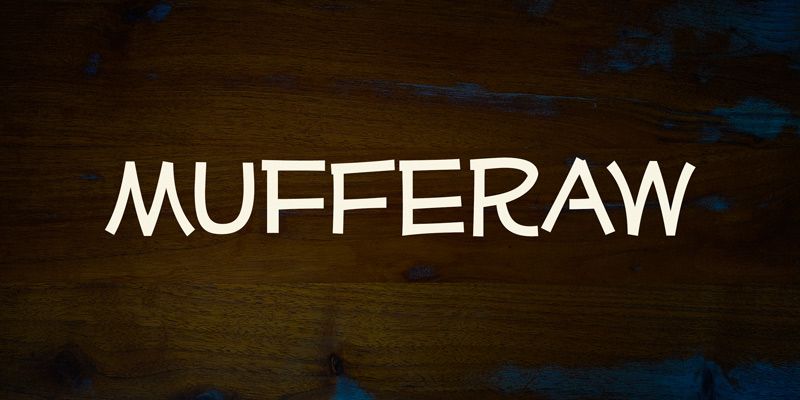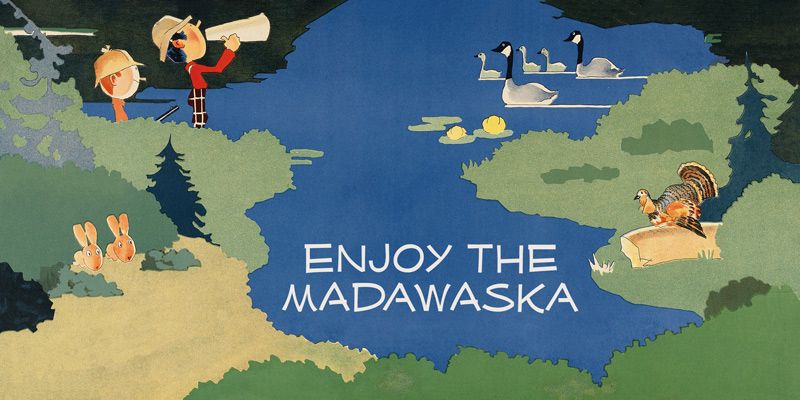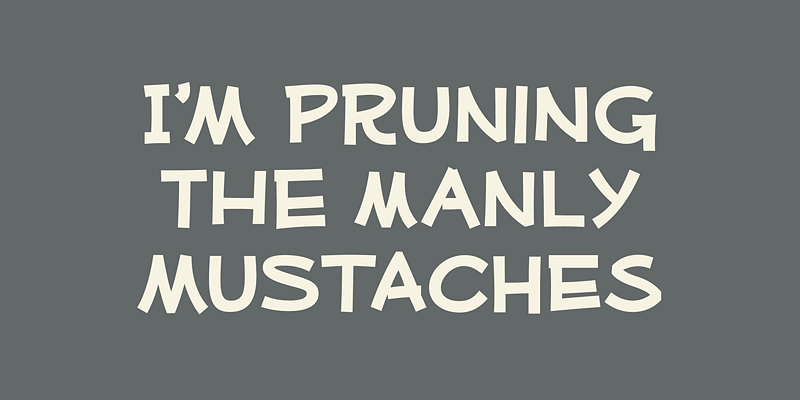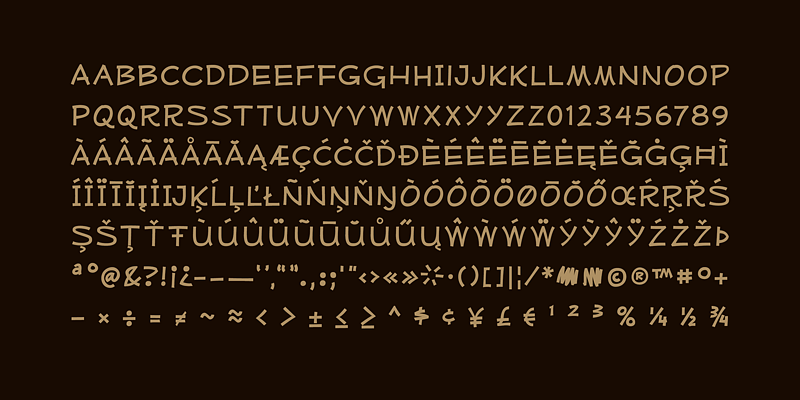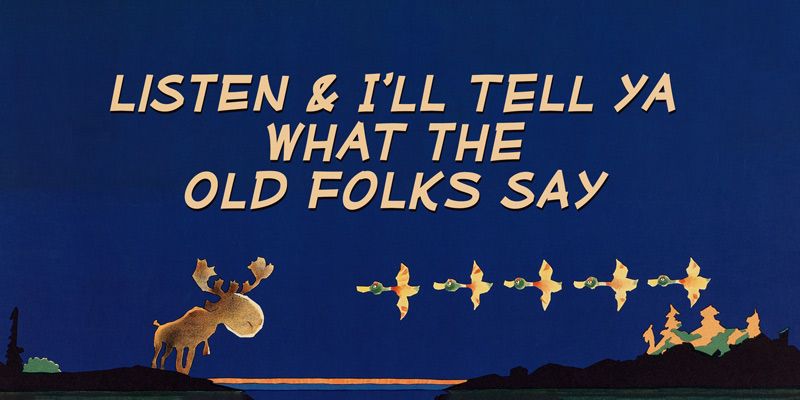
Mufferaw is strong, friendly lettering with a slightly rustic twist. Its defined shapes keep a title organized, while the playful rhythm stops it from becoming a stern industrial face. Regular and Bold, with matching italics, provide enough to build a compact hierarchy for a children’s science kit, outdoor activity, maker event, or comic-spirited package. A bold title can do the inviting; Regular can carry a short instruction or label; italics can introduce motion. Mufferaw is most persuasive where the subject is practical and hands-on, but the tone should remain open to curiosity.